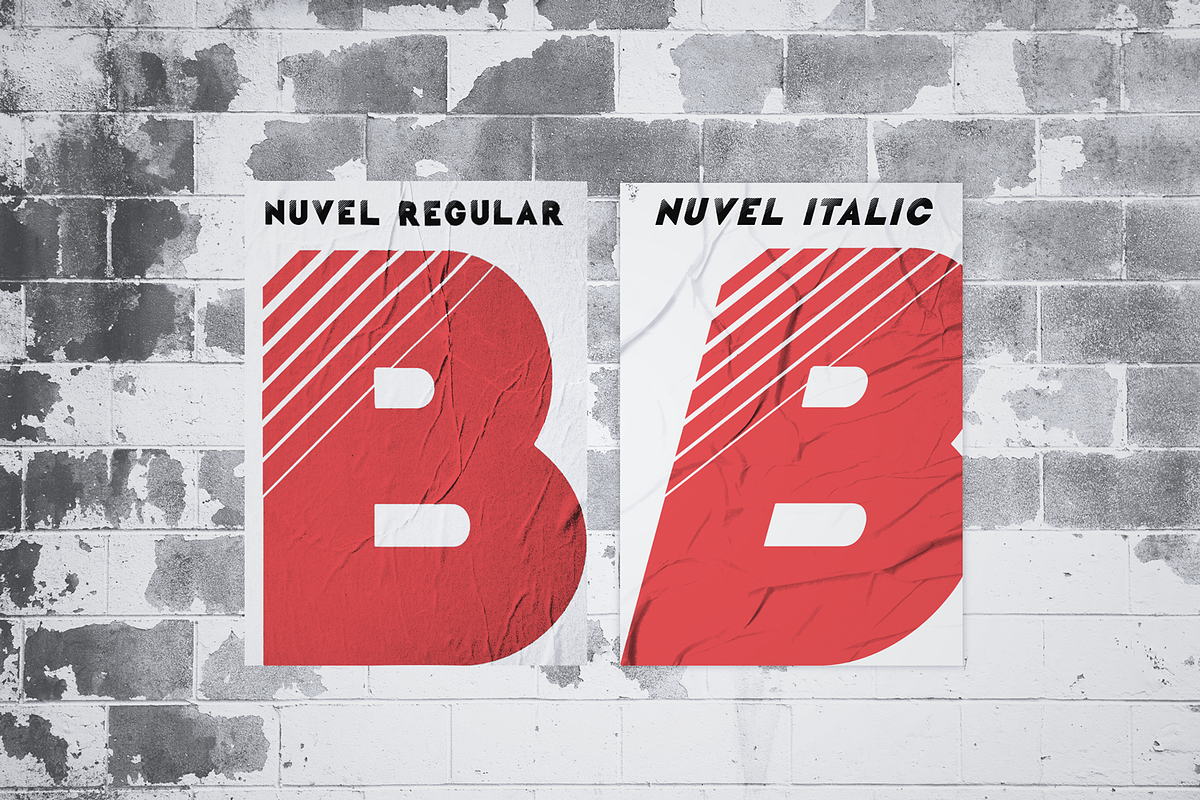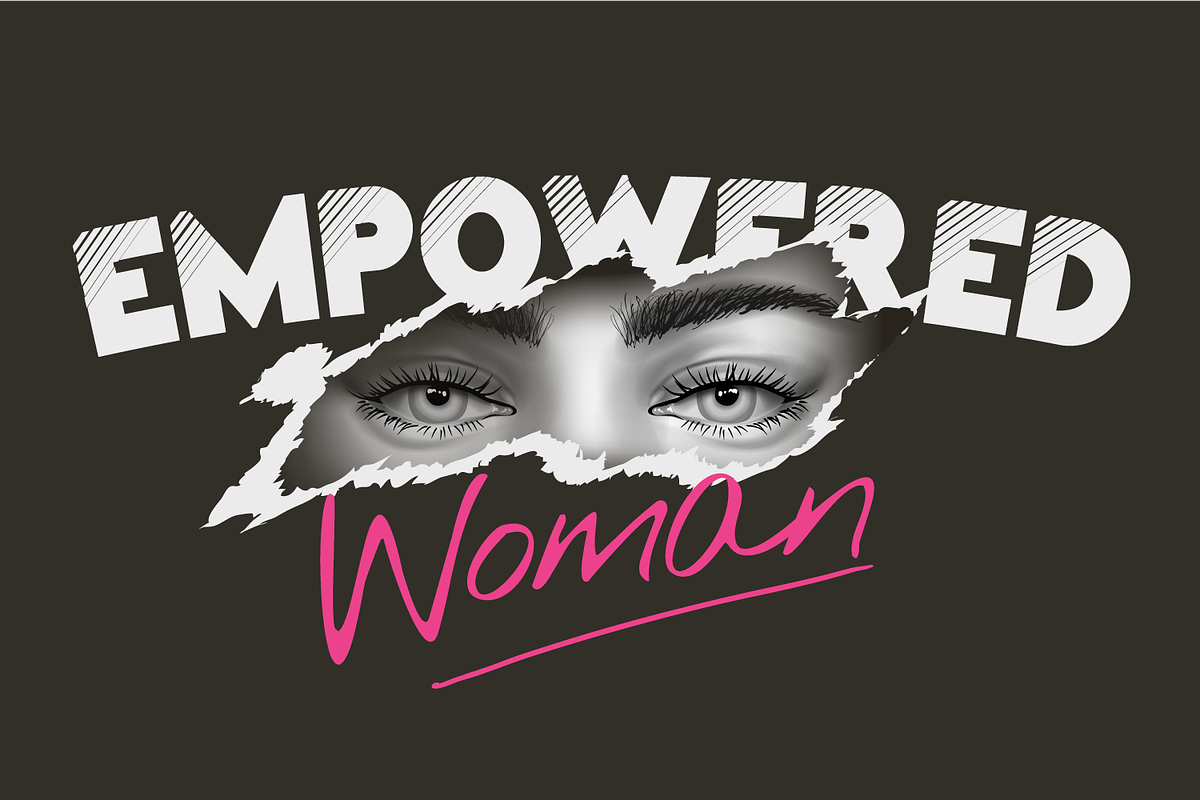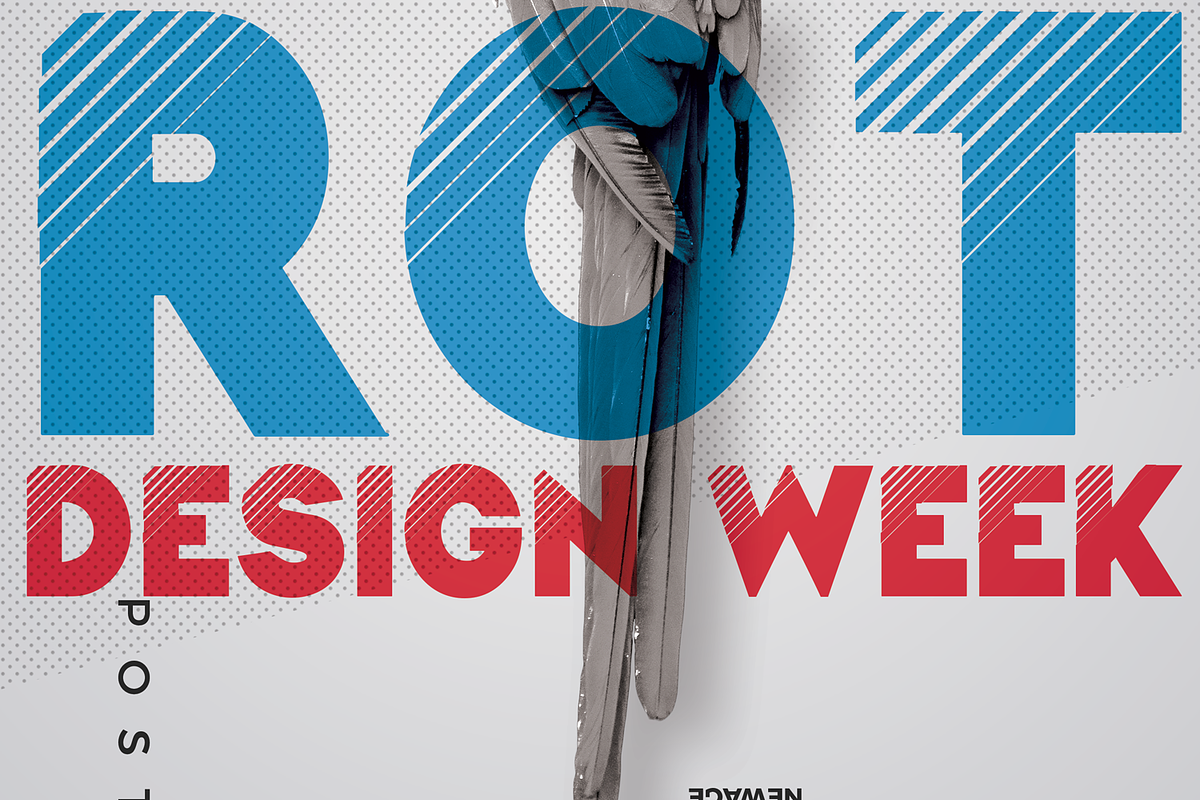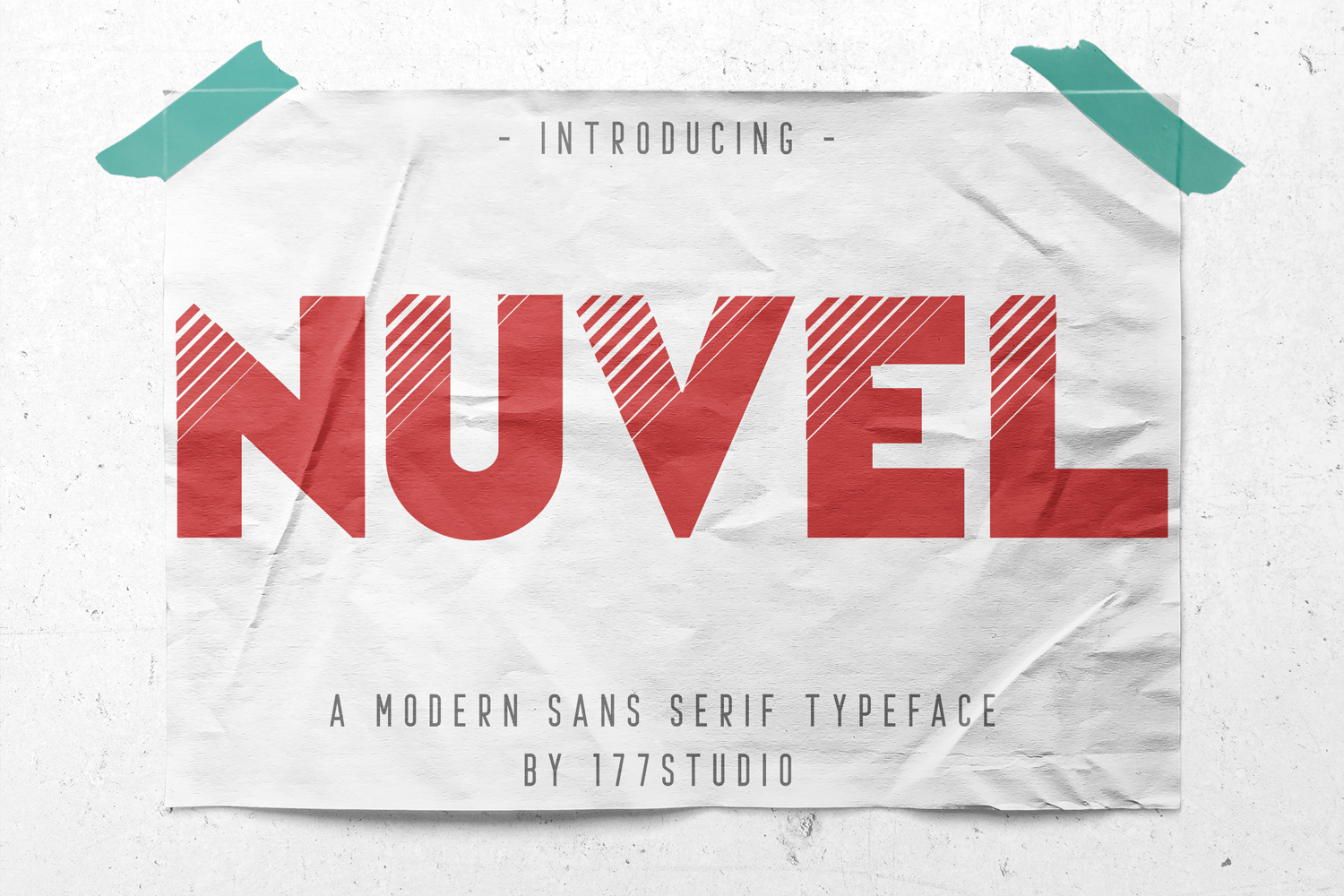
Nuvel - Modern Sans Serif Font
Nuvel Font is a Modern Sans-serif typeface. It's a solid and shopisticated display font, created to emphasys big headline, title, single character and also good for short description paragraph. The simple and dynamic shape makes it very suitable to be used as headlines, logos, or other design needs that require a formal touch but still seem dynamic.